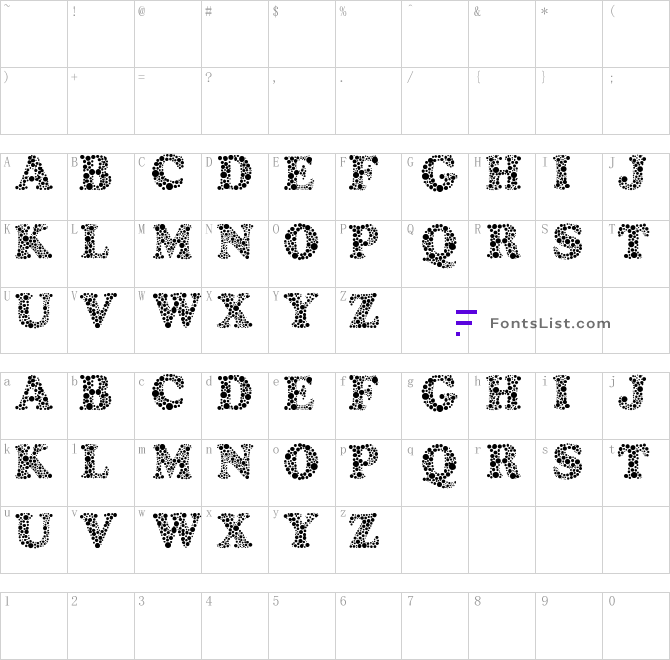
- Font Name:Amydor
Amydor.ttf is a very beautiful artistic font, Amydor.ttf is widely used in the design and printing of various books and pictures,Amydor.ttf has a strong visual impact,Amydor.ttf is a commonly used font in newspapers, magazines and books, and is used in posters, e-commerce Poster design, store design, logo design, font design and other fields.Amydor.